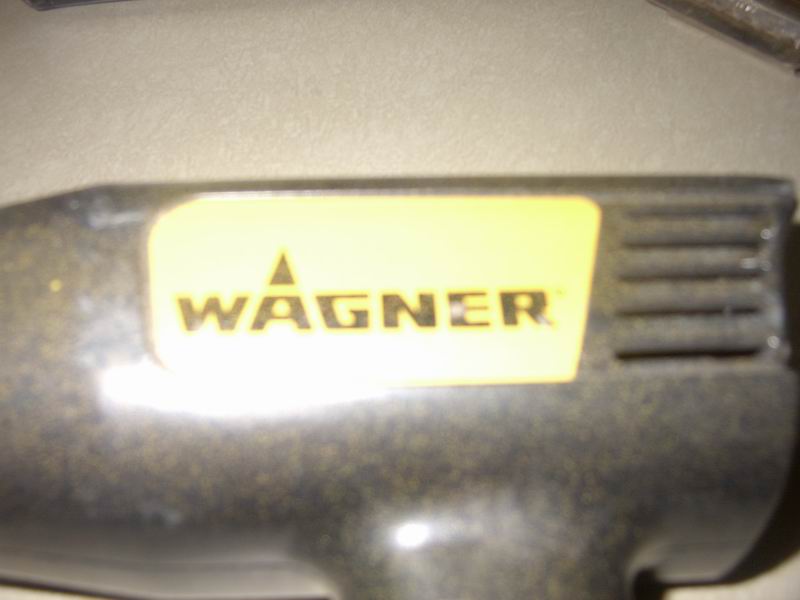
whats the font used by wagner
Anyone know this font. Its similar to futura but thats not it.
as far as what they use on their logo it has been customized